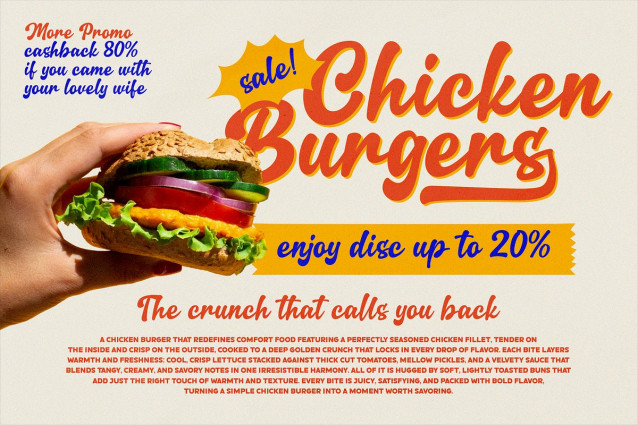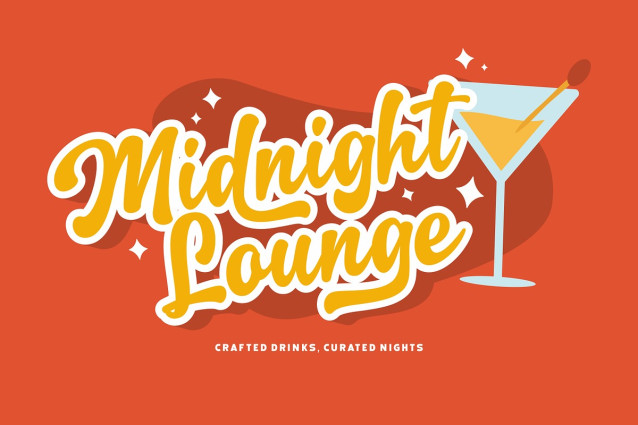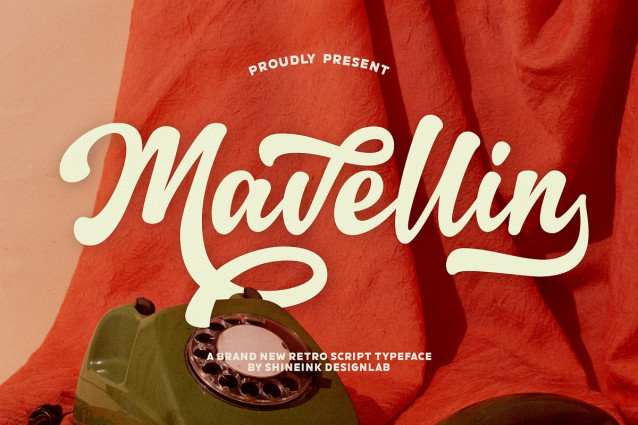
Mavellin Script Font
Mavellin Script Font is a retro-inspired script typeface that blends timeless elegance with a smooth, flowing handwritten style. Designed with graceful curves and confident strokes, this font captures the charm of classic lettering while staying fresh and versatile for modern design needs.
Its bold yet fluid letterforms create a warm, nostalgic feel, making Mavellin perfect for branding, logos, packaging, posters, editorial headlines, social media graphics, and vintage-style projects. Each character flows naturally, giving your typography a handcrafted personality that feels authentic and inviting.
Mavellin shines in both digital and print applications, especially for designs that seek a romantic, retro, or classy atmosphere. From fashion brands and cafés to lifestyle products and creative campaigns, this typeface adds character, emotion, and timeless appeal to every word.